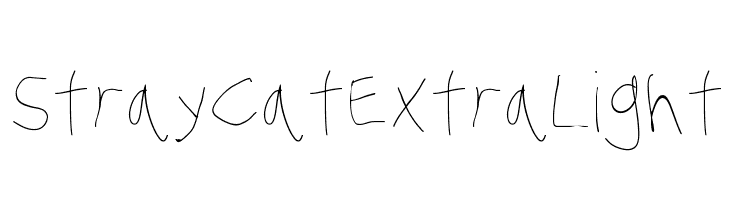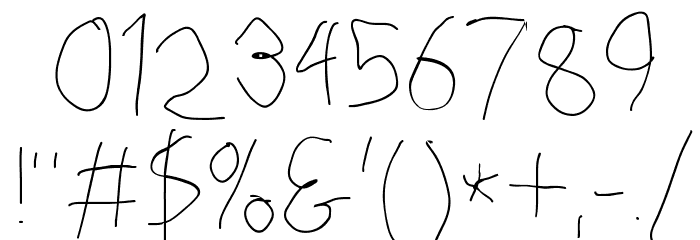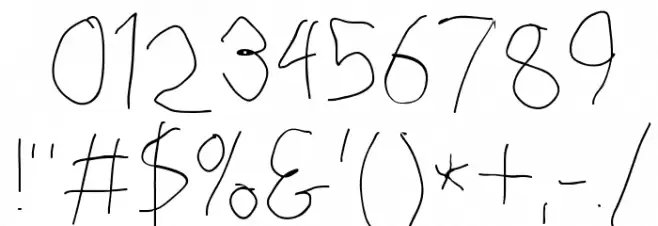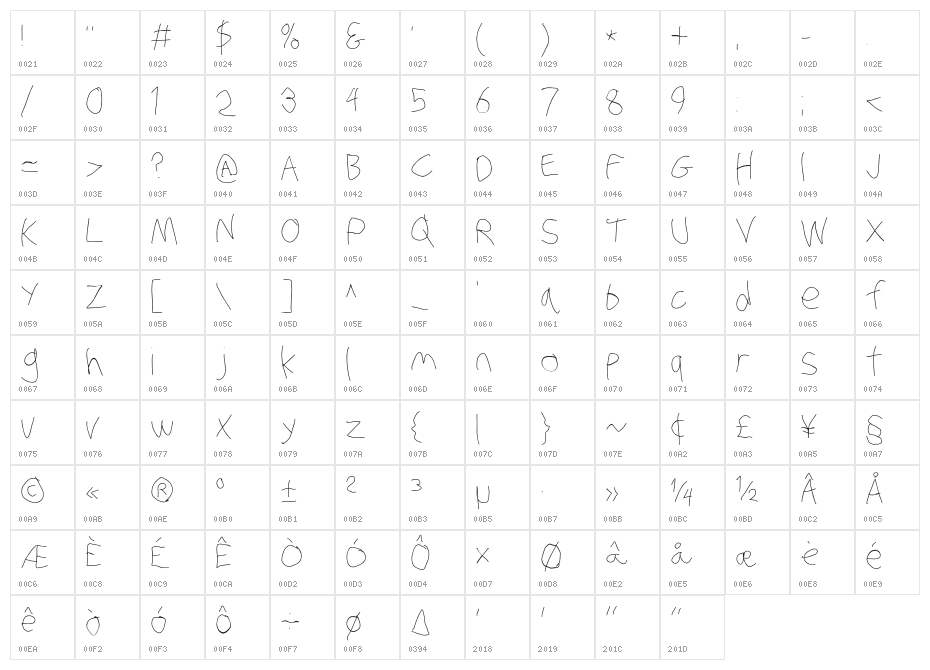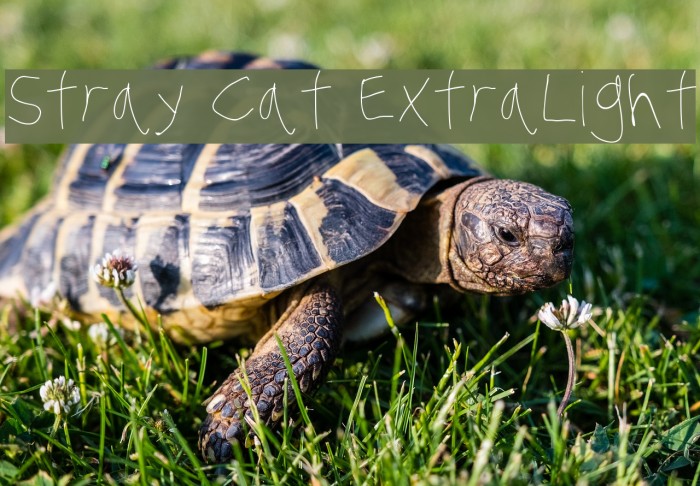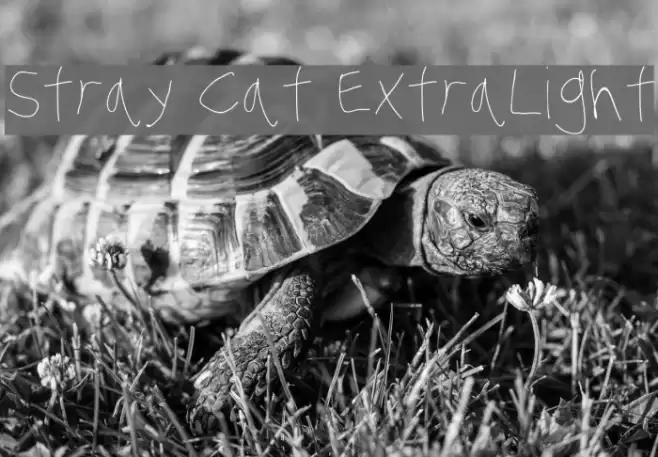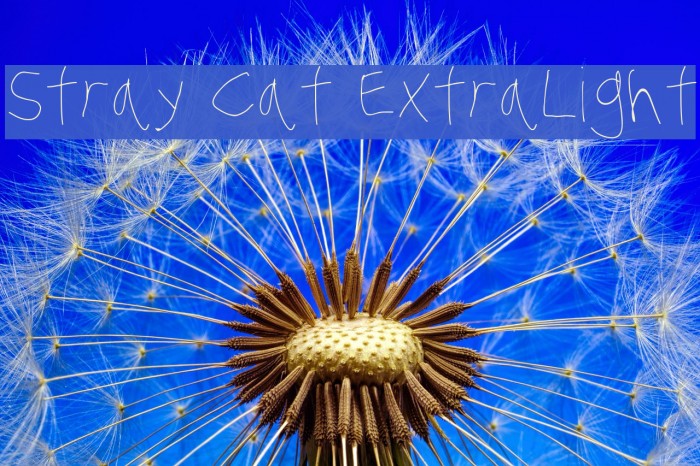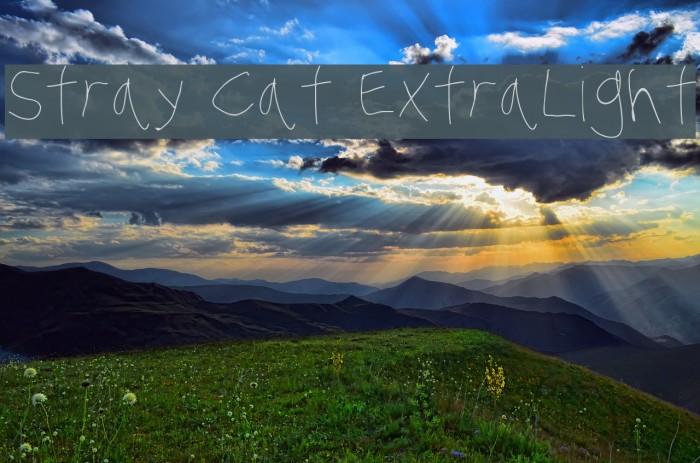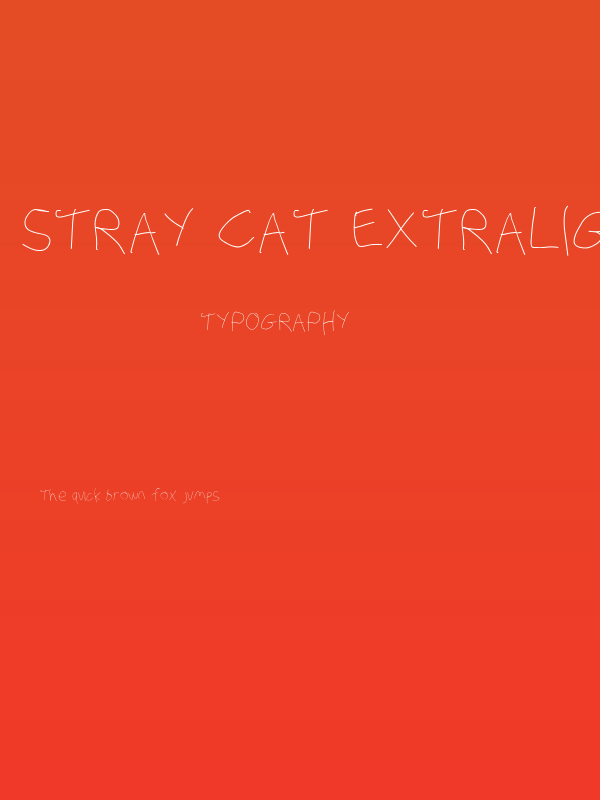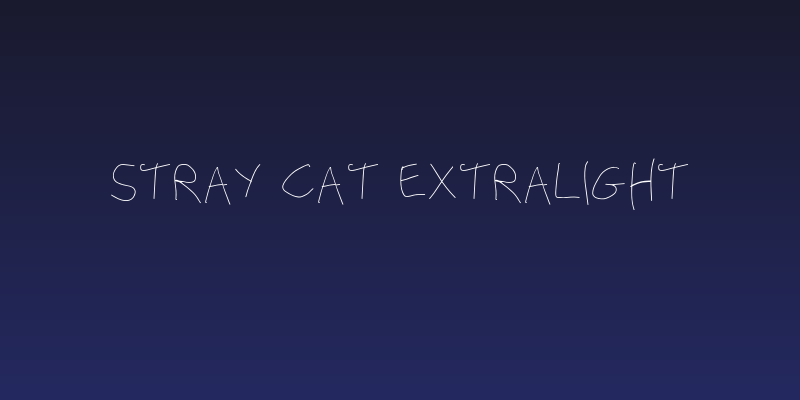
Stray Cat ExtraLight Font
Stray Cat ExtraLight Description
This font features a playful and whimsical handwritten style, characterized by its thin, uneven strokes and casual appearance. The letters are slightly irregular, giving it an informal and personal touch, reminiscent of a quick sketch or doodle. The uppercase and lowercase letters maintain a consistent style, with a natural flow that suggests spontaneity. Numbers and special characters follow the same playful aesthetic, making the font suitable for creative and informal applications. Its light weight and airy feel make it ideal for projects that require a touch of personality and charm.
| Proposed Projects | Ideal for greeting cards, children's books, casual invitations, and creative branding. |